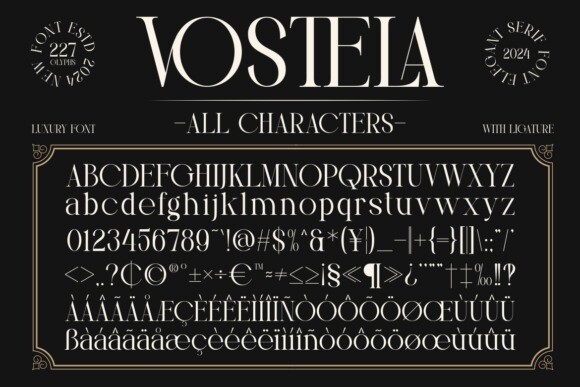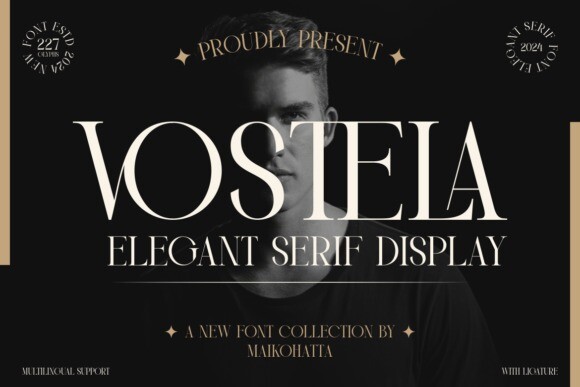
Vostela Font
Designer: maikofarazhatta
Vostela Font is a stylish serif font that seamlessly blends modern elegance with classic refinement. Its gracefully designed letterforms exude sophistication and versatility, making it an ideal choice for projects that demand a touch of timeless charm. Vostela adds a distinctive and polished aesthetic to your typographic expressions.